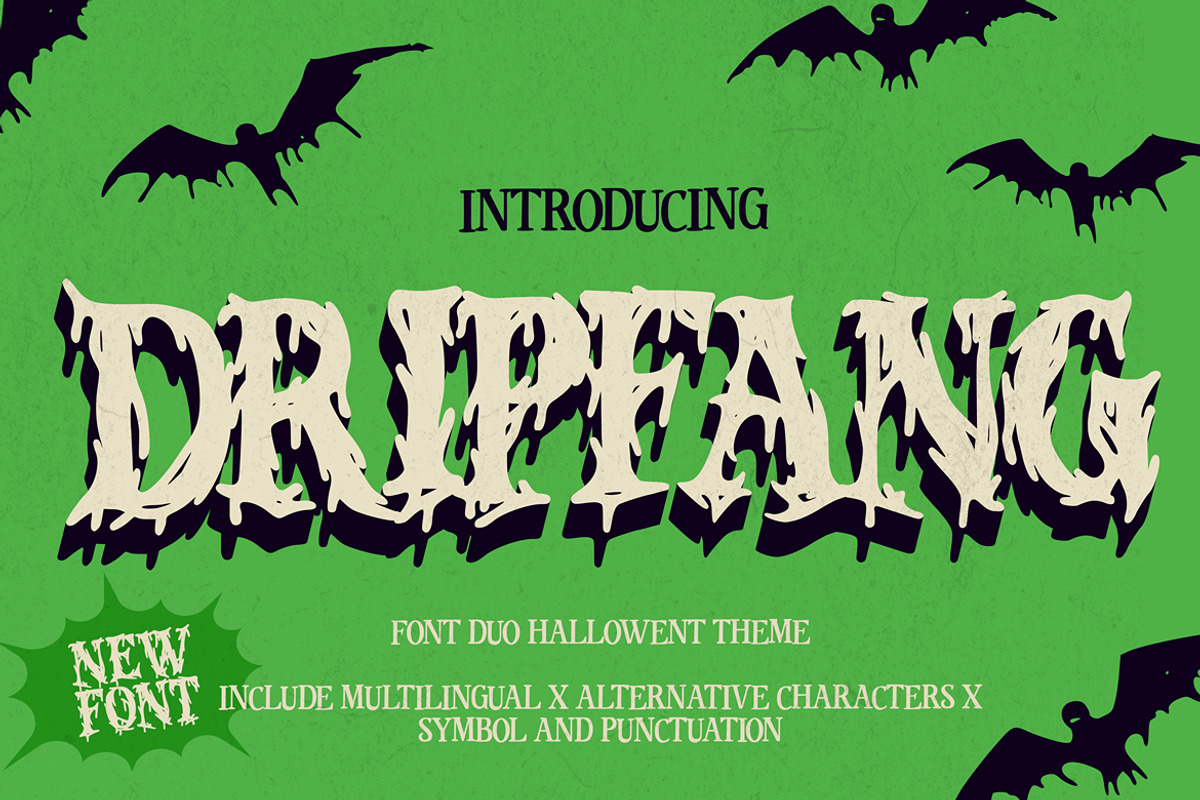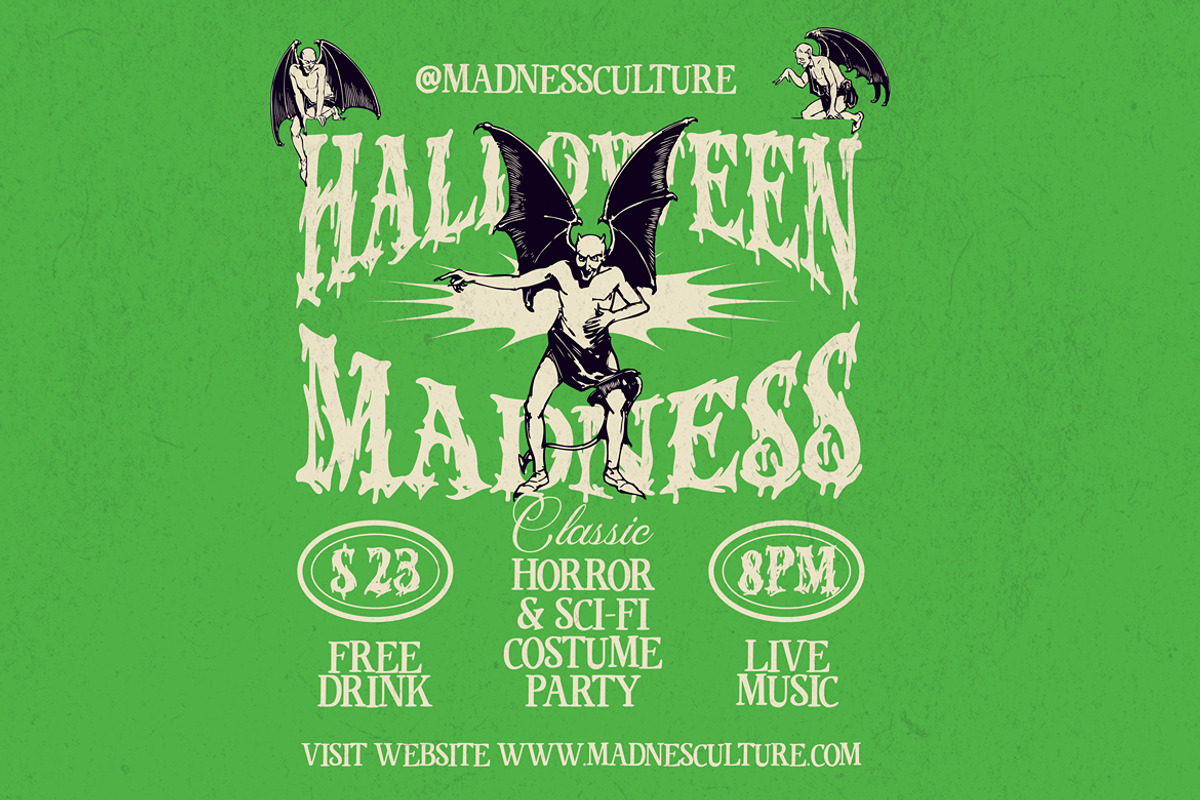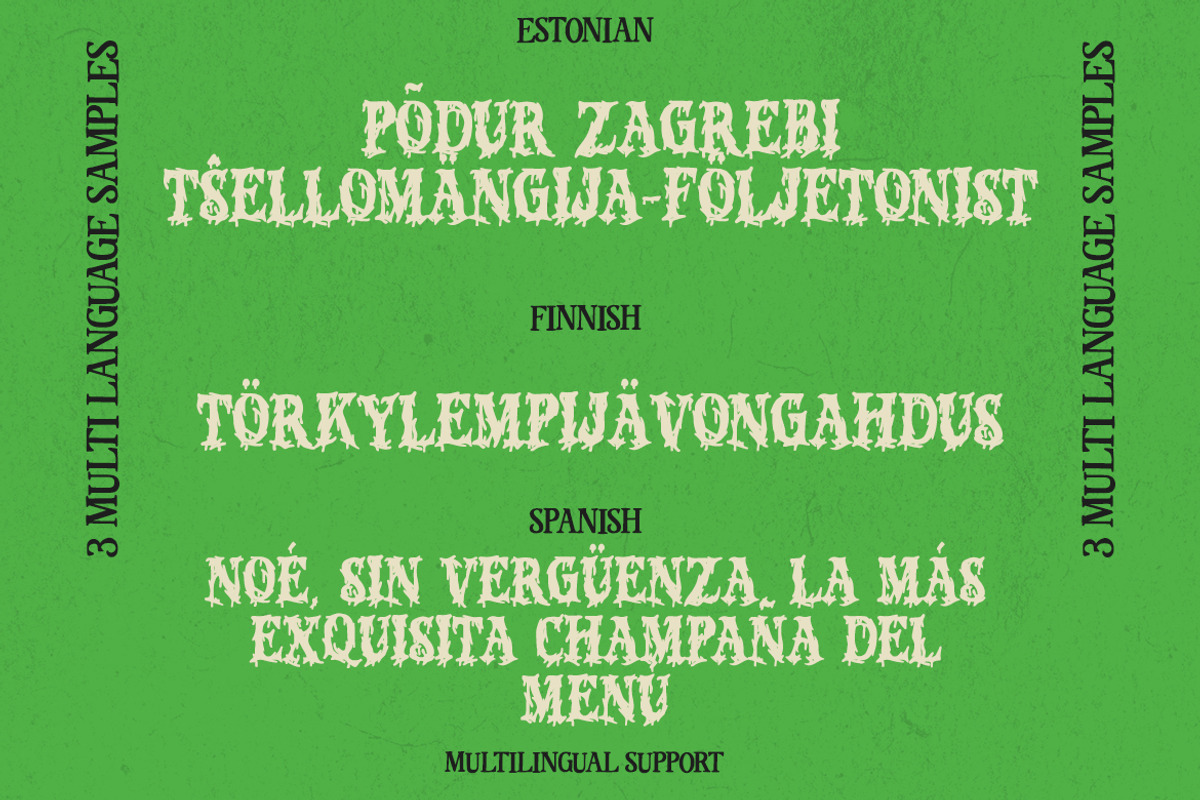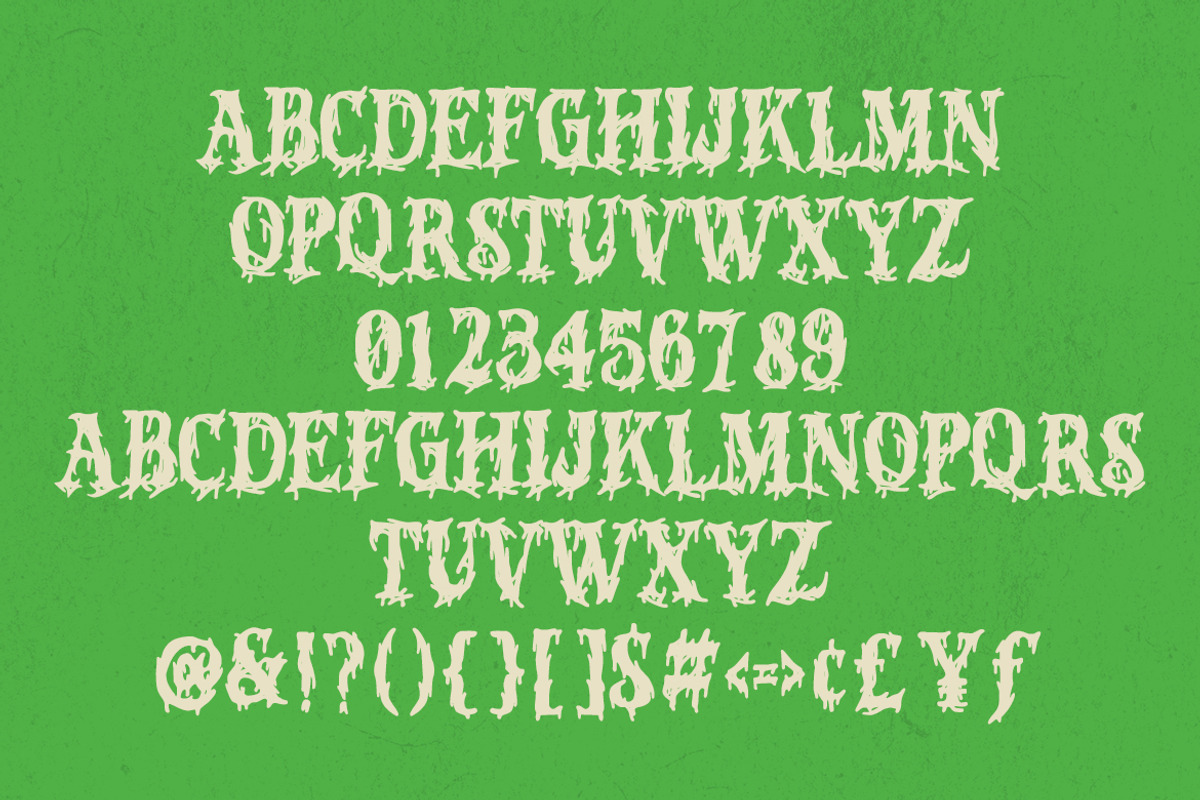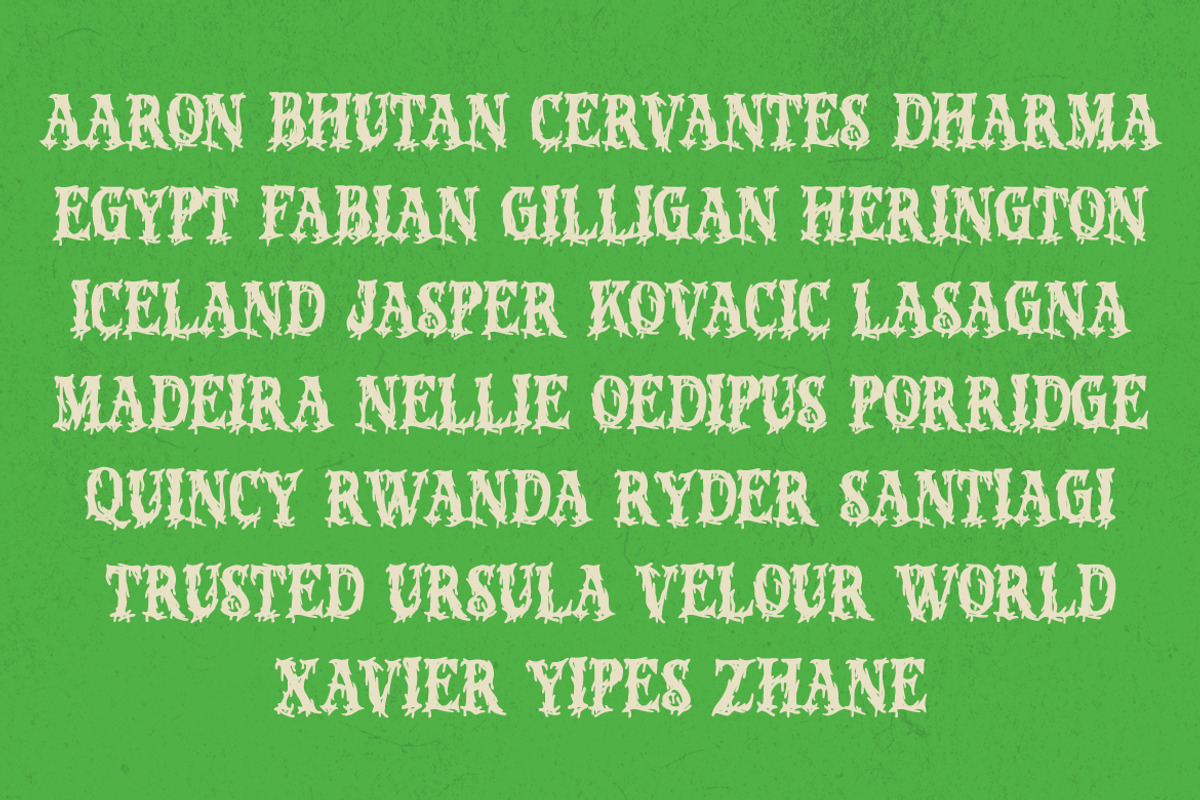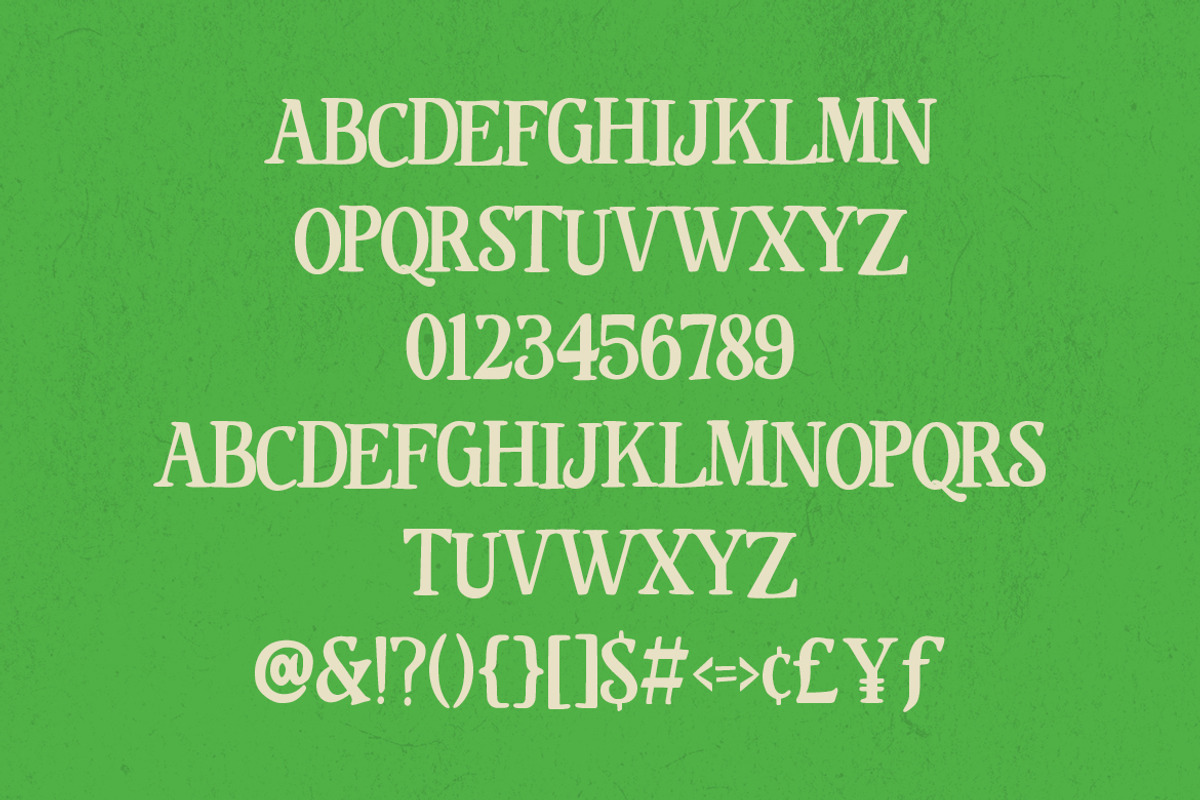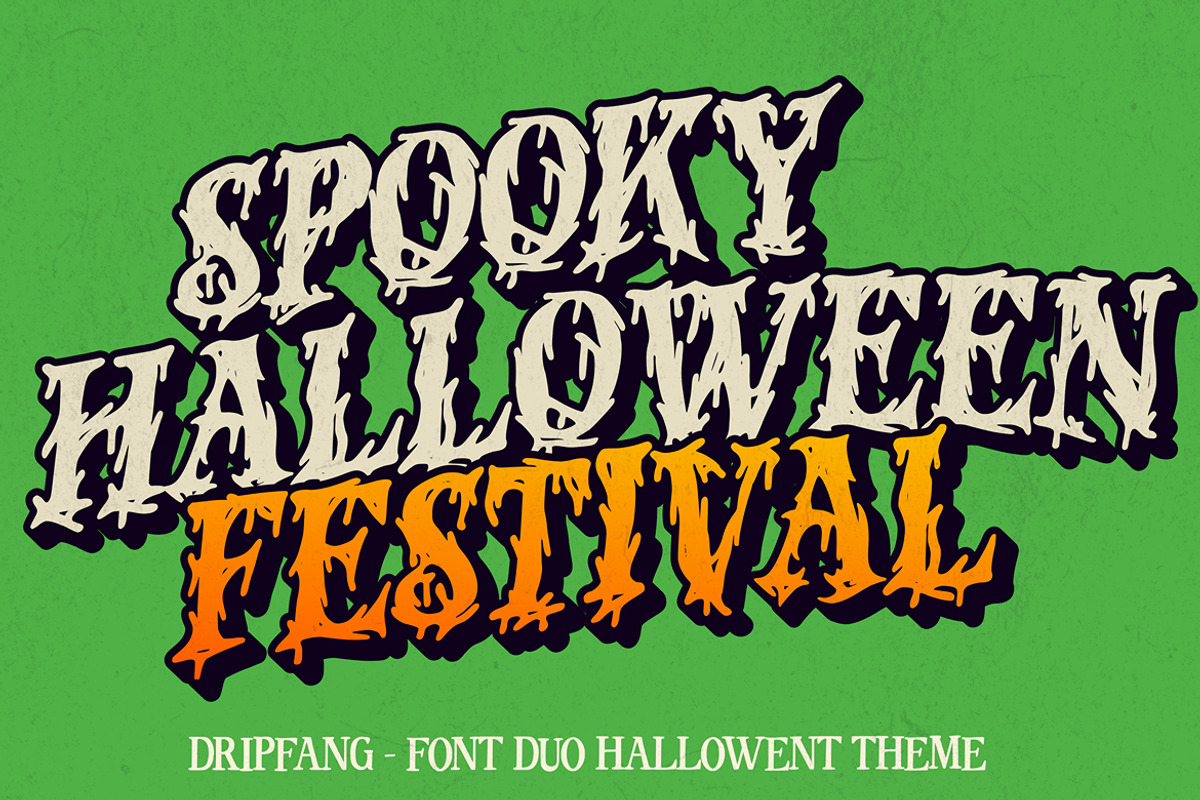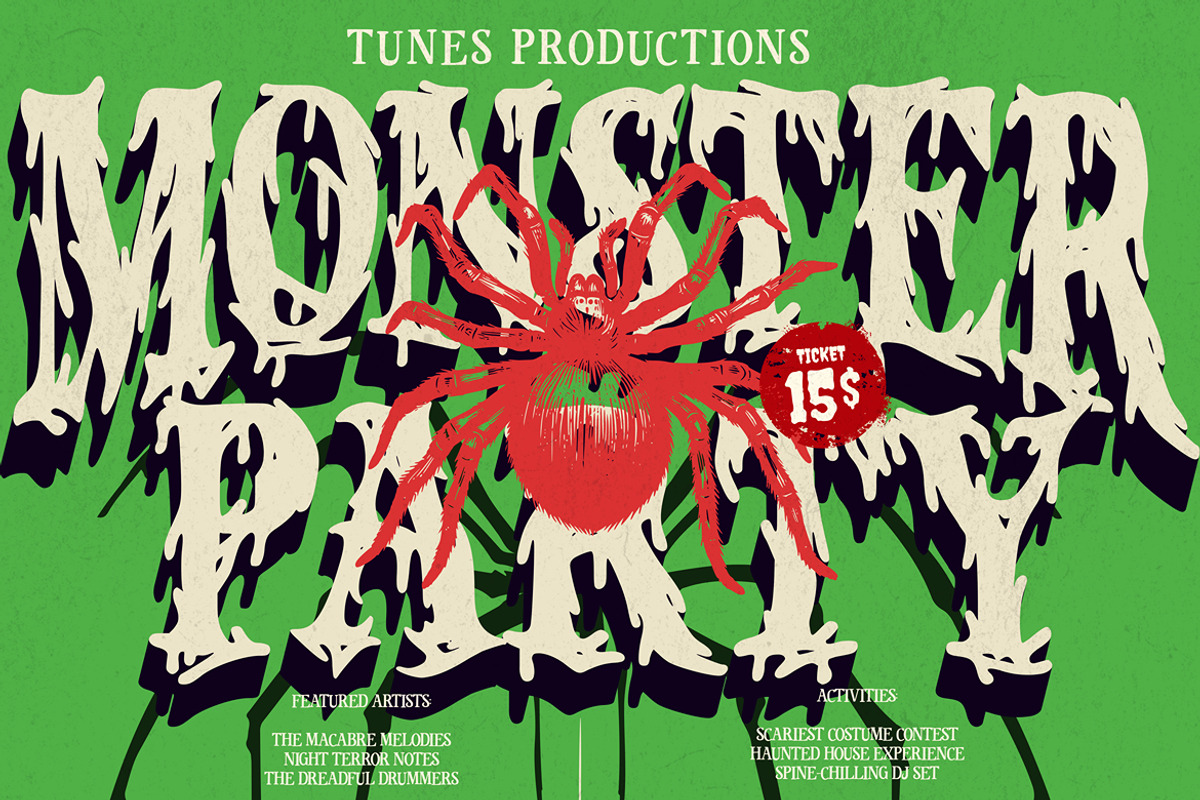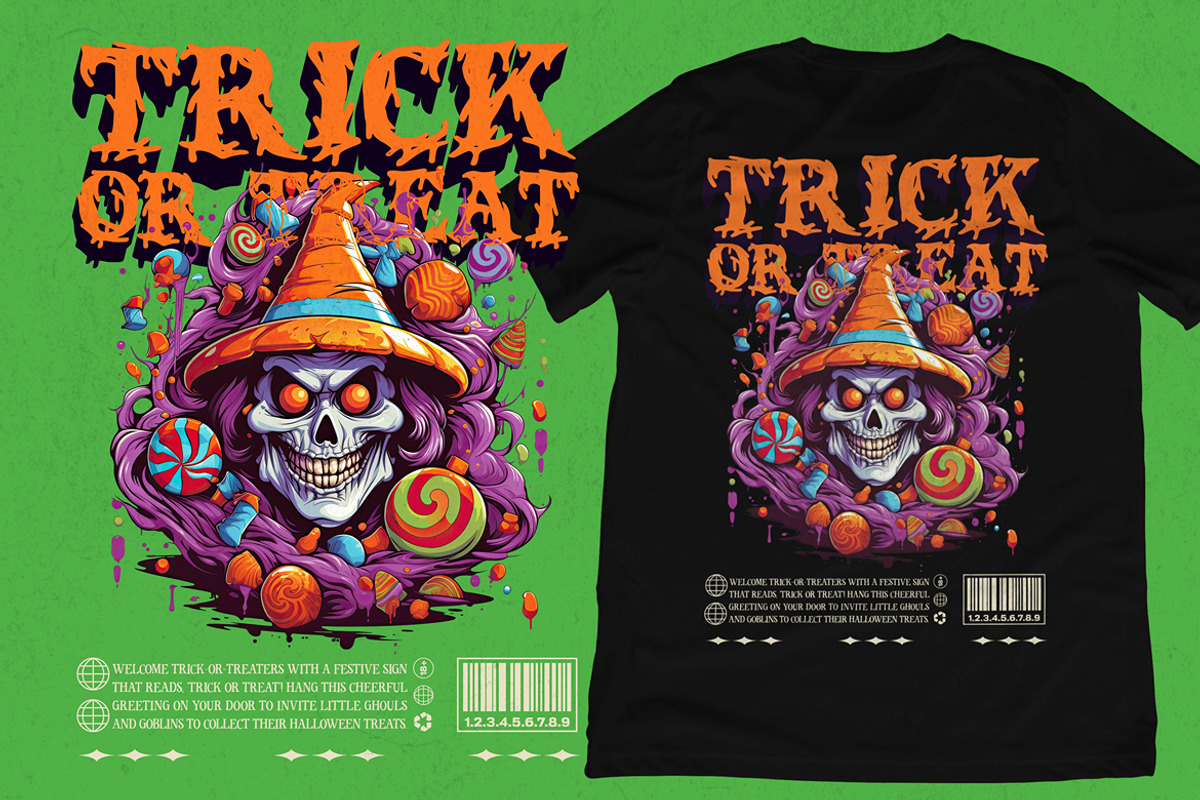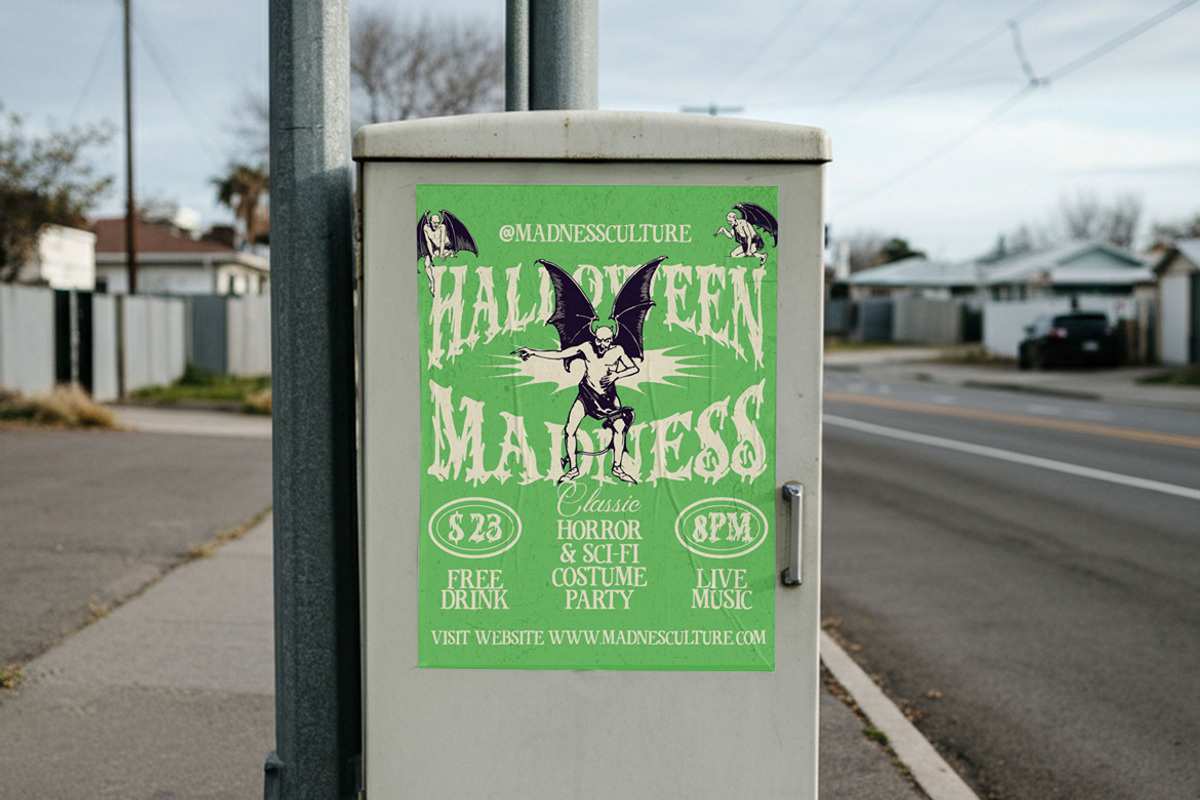
Dripfang – Halloween Font Duo
Dripfang is a bold and haunting typeface designed to bring an extra dose of thrill to your creative projects. With its striking dripping style and unique details, this font captures the eerie and playful atmosphere that makes it perfect for seasonal designs, horror-themed graphics, or any project that needs a bold and chilling touch. Its versatility allows it to stand out in titles, posters, invitations, branding, and digital creations, while still being easy to pair with supporting fonts. Dripfang is not just about letters—it’s about creating a mood, a presence, and a statement that instantly connects with your audience. Complete with multilingual support, alternates, and special symbols, this typeface provides flexibility and creativity for endless design possibilities.
Features : Uppercase and lowercase characters